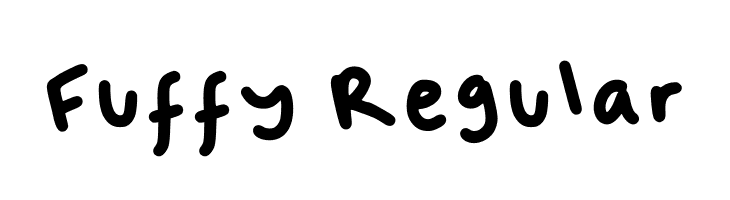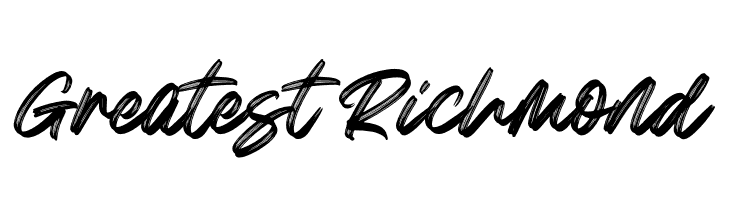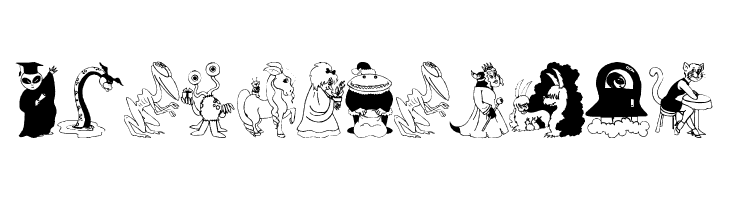
A playful handwritten font with smooth, rounded strokes and whimsical letterforms.
A lively and dynamic script font with fluid, connected letterforms and bold strokes.
A futuristic, bold font with angular, geometric characters.
A dynamic and fluid handwritten font with a playful yet elegant style.
A dynamic, hand-drawn style font with bold, irregular strokes.
A vintage, typewriter-style font with a textured, handcrafted appearance.
An elegant script font with flowing, decorative strokes and sophisticated flourishes.
A bold, modern font with geometric elements and strong visual impact.
A bold, geometric font with a strong industrial and futuristic feel.
设计师偏爱 GiveMeBackTheNights, Guardian Snowing Demo, Sky Marshal, Essayswritingservicenet Regular and Monstera Jam Bold,因为其造型干净、适用范围广—— 从品牌识别到落地页、海报都能胜任。